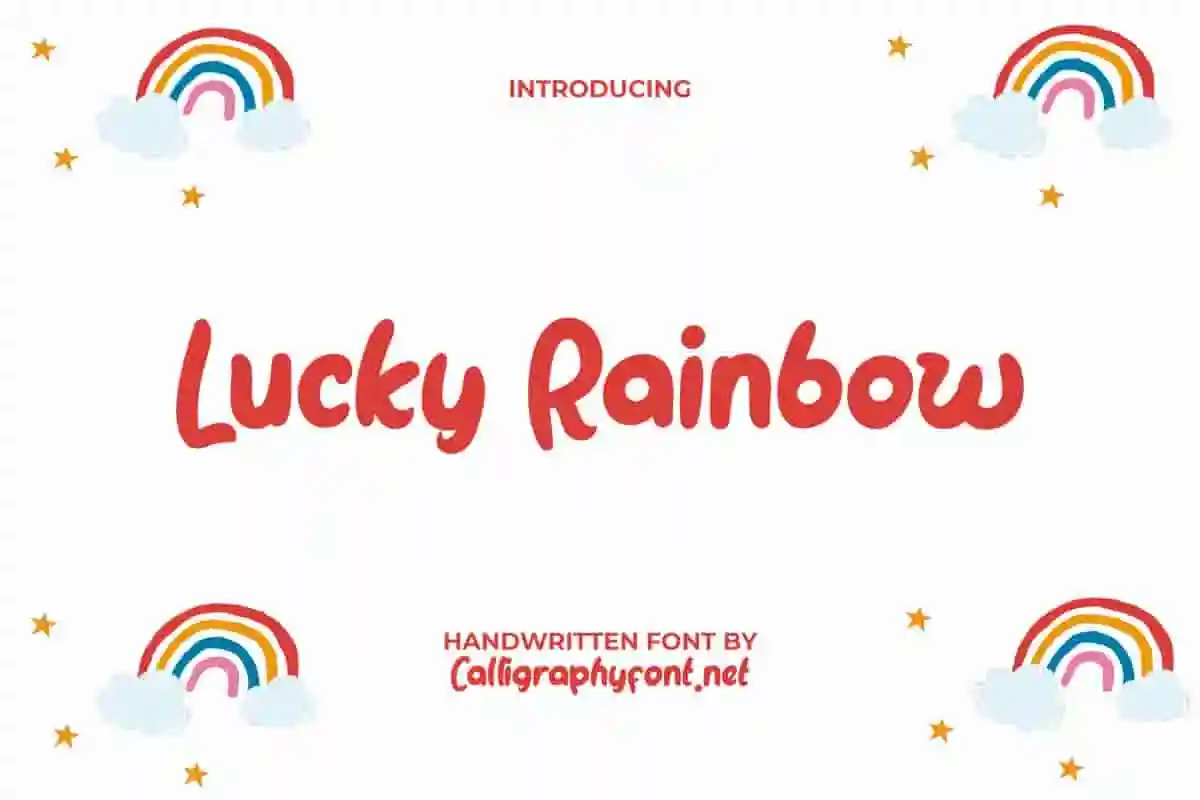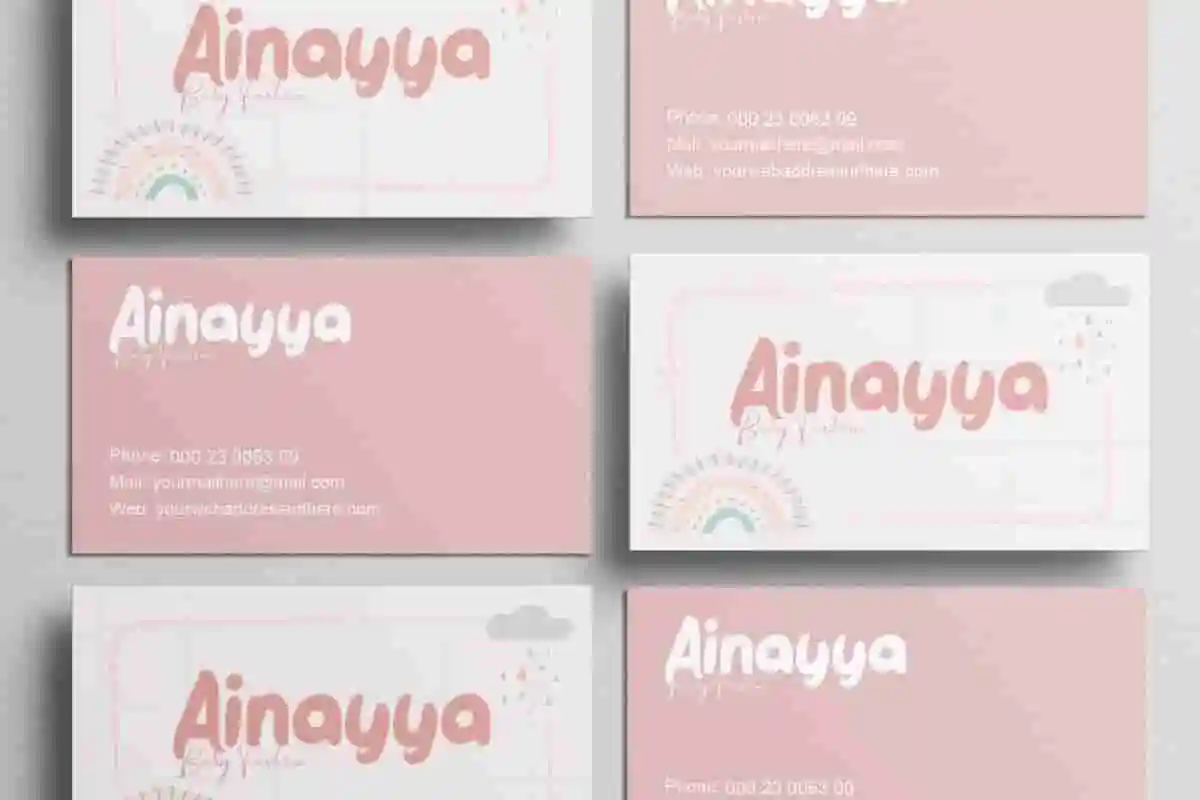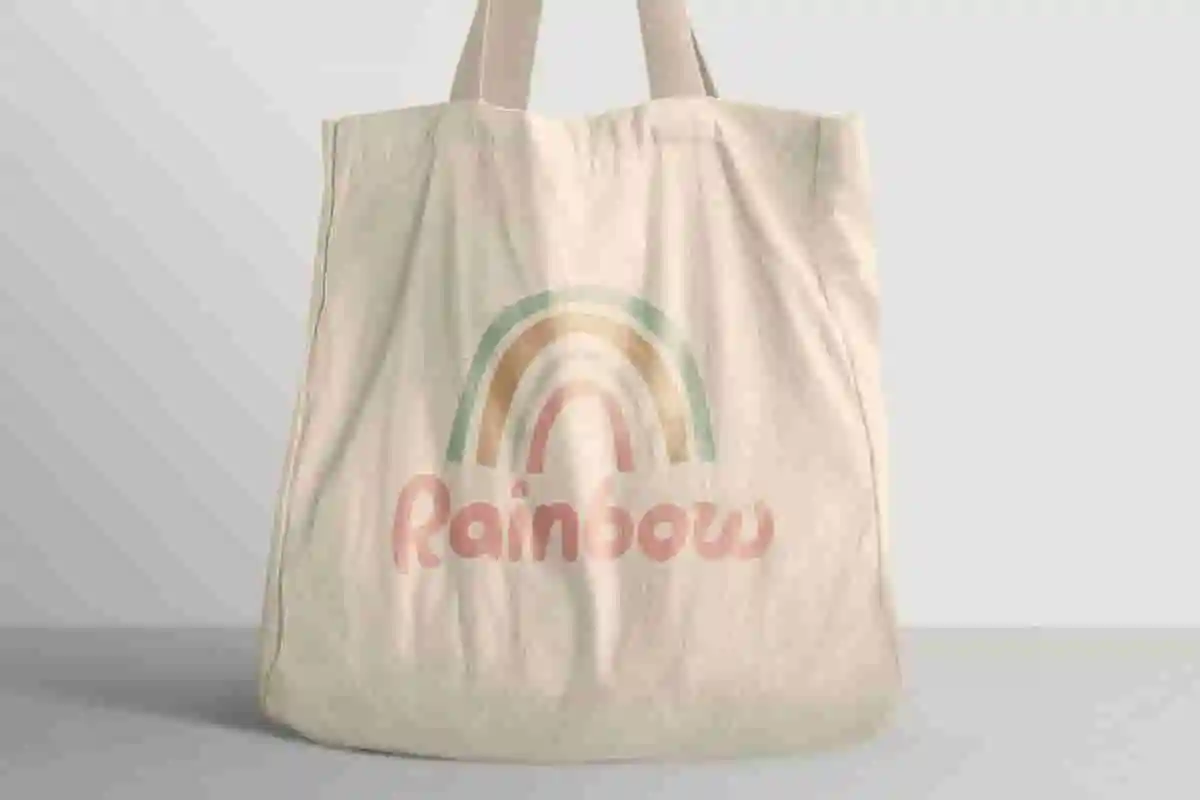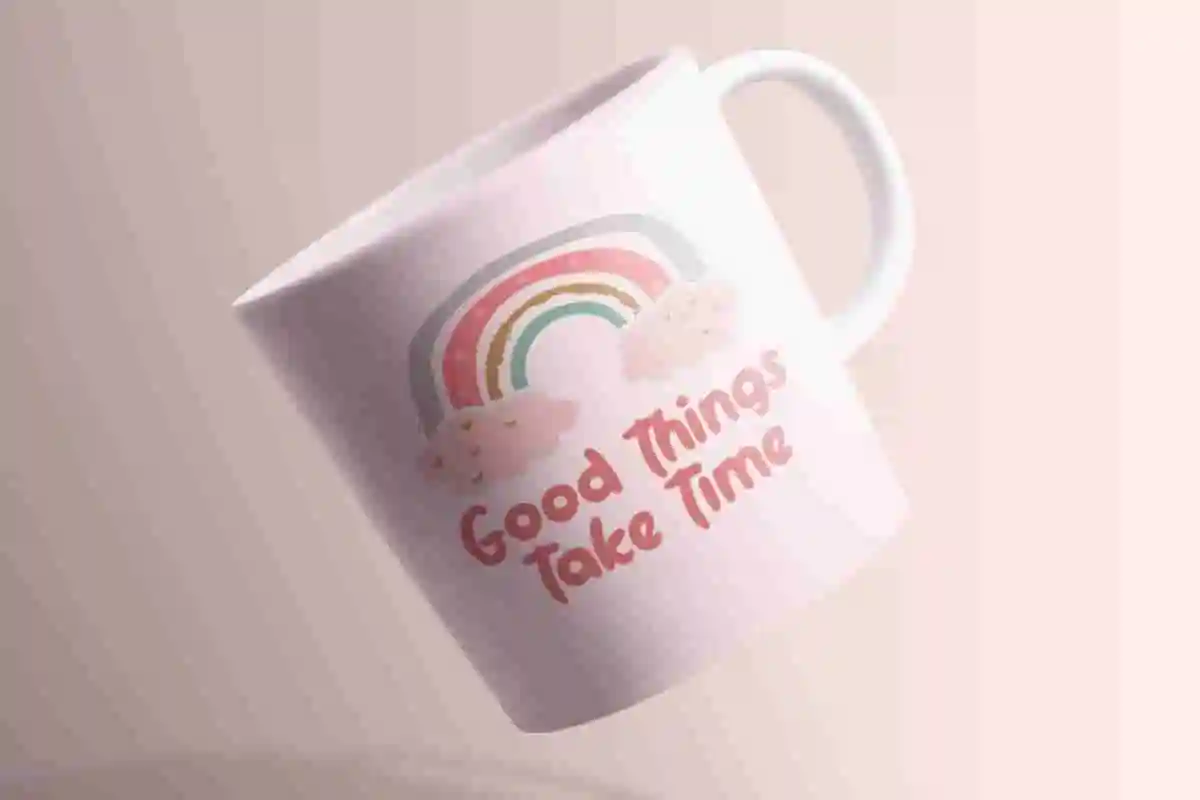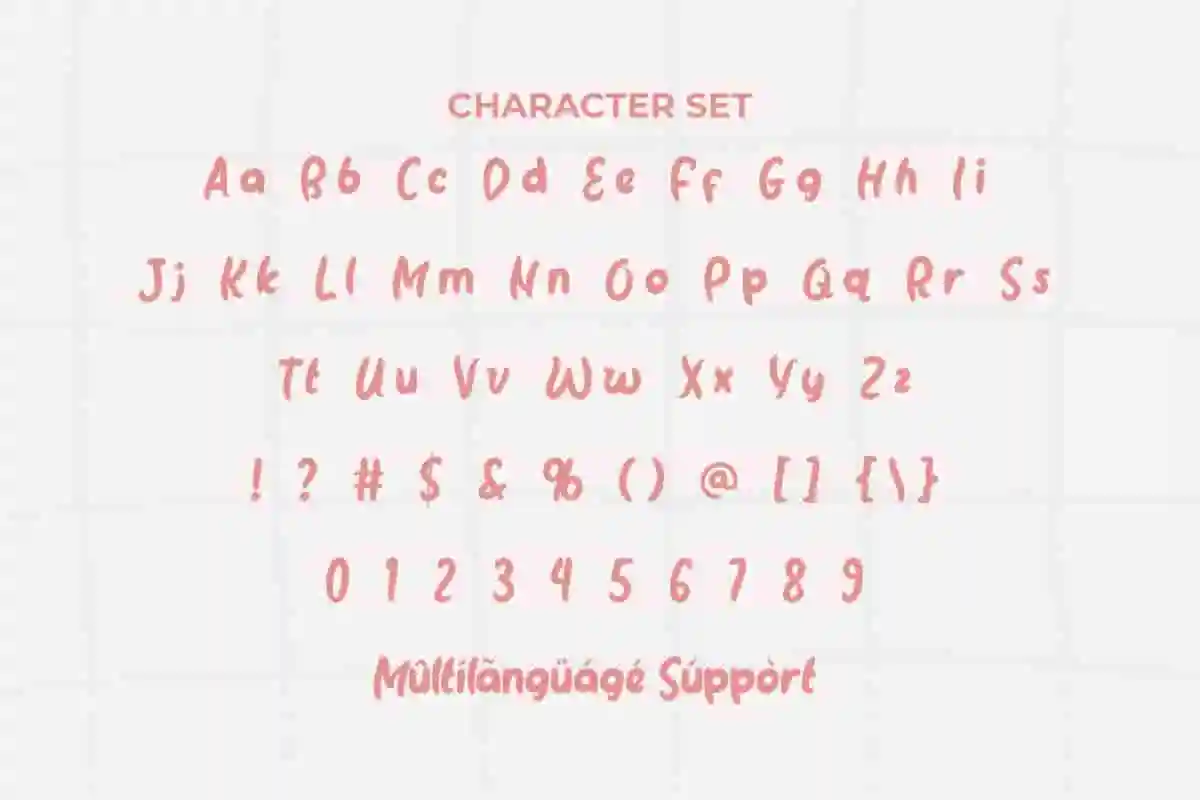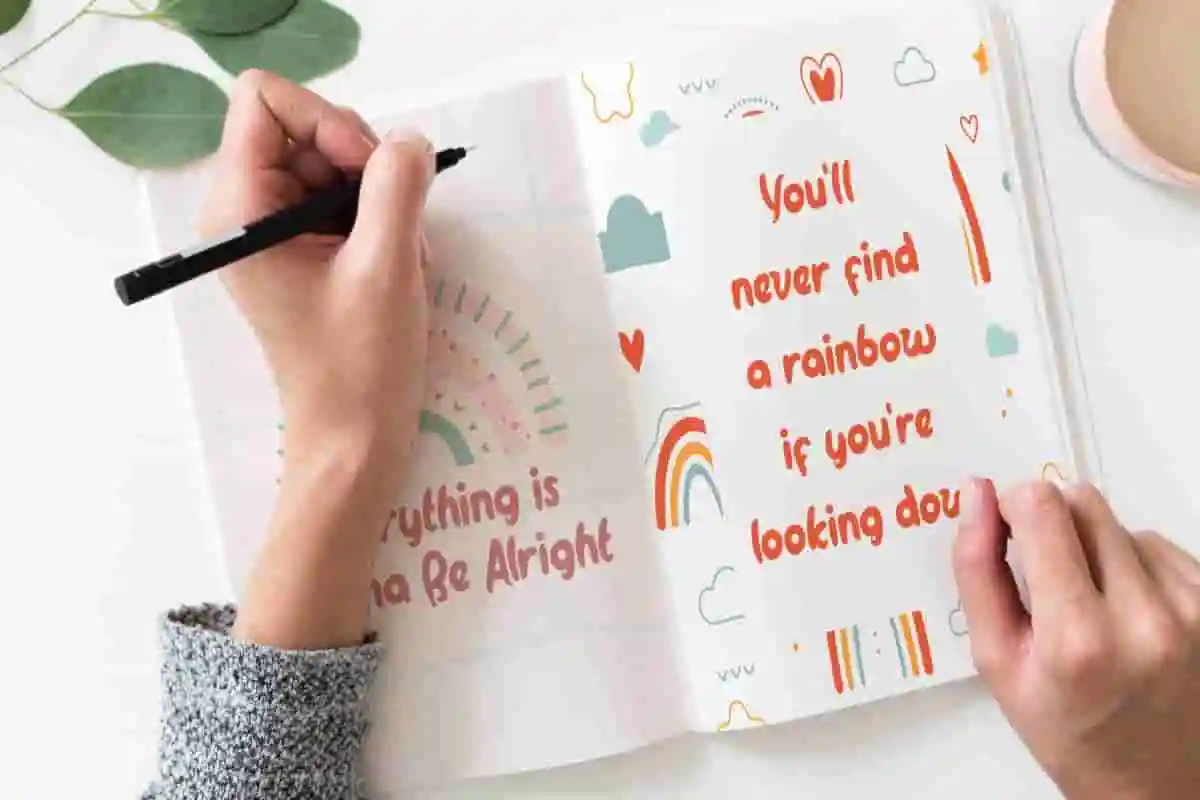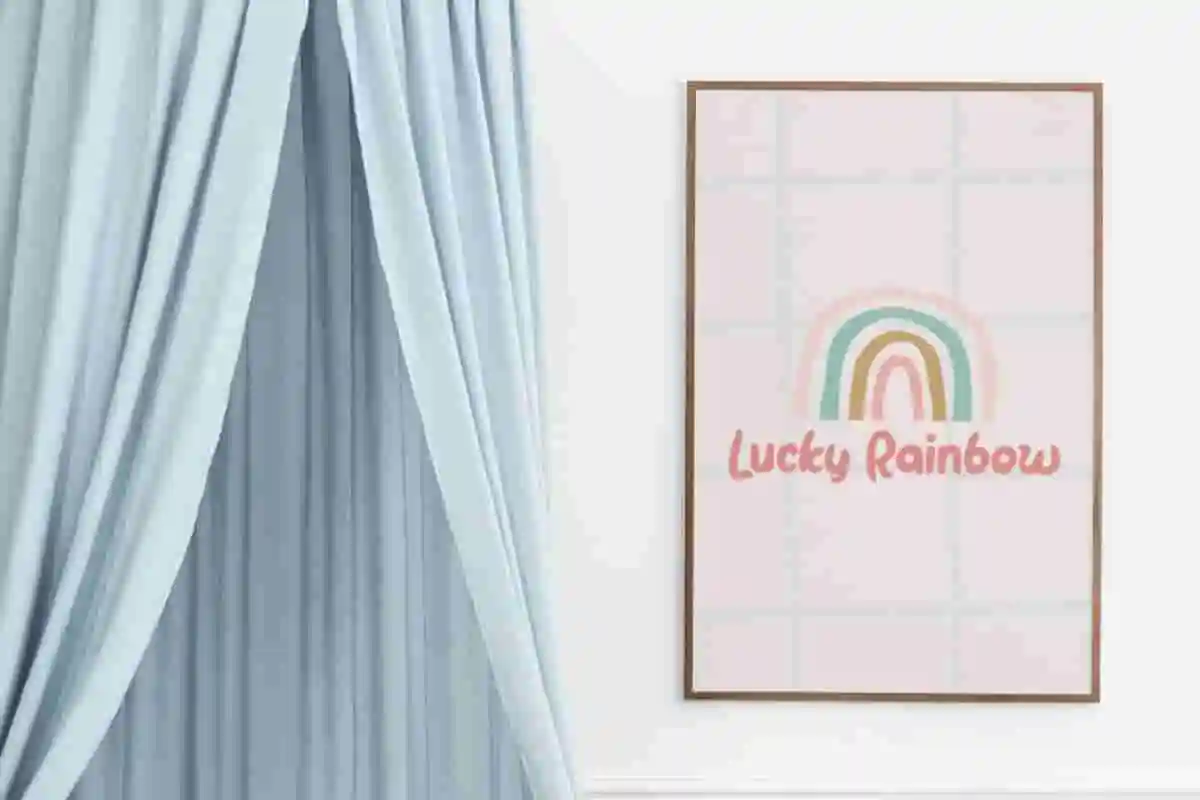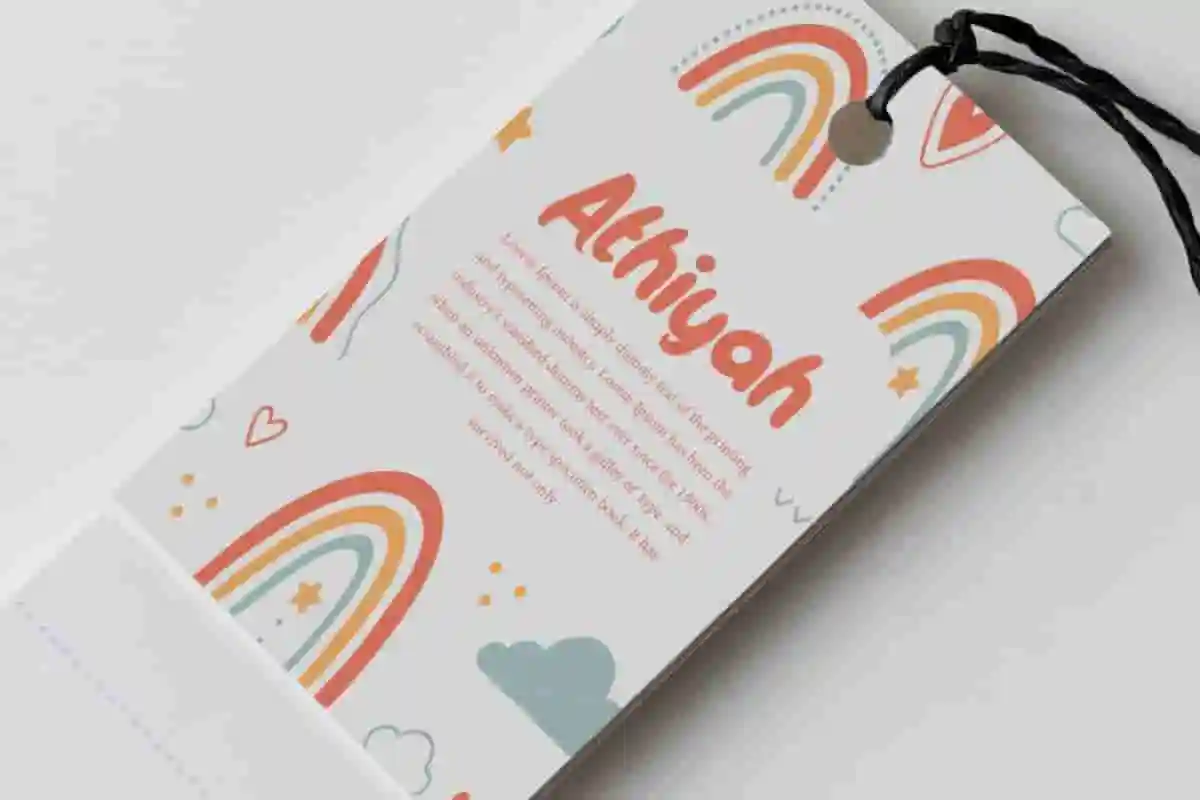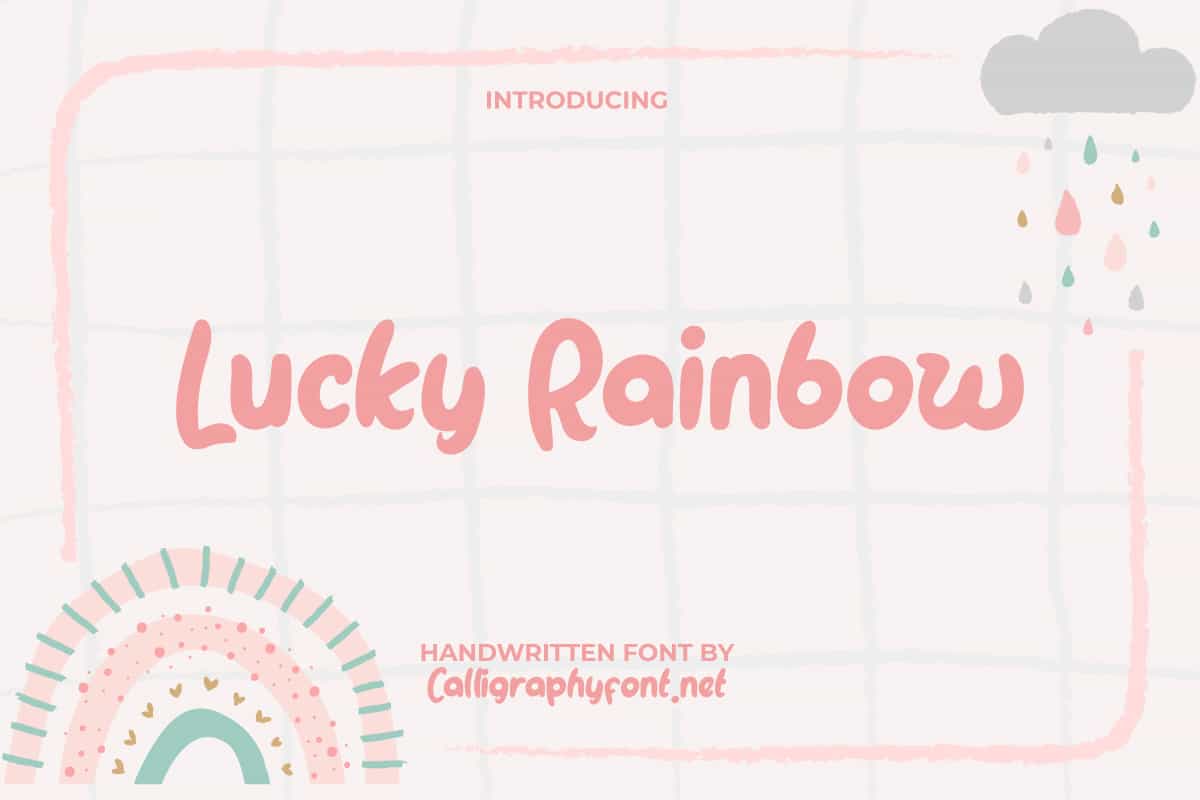
Lucky Rainbow Font
Lucky Rainbow Font is a charming and cute handwritten brush font that will provide you a variety of amazing letters for any work design you create! Looks great for logos, quotes, and a handmade touch.
Lucky Rainbow Font is a adorable handwritten brush font. This font can make your design even more adorable and never boring to look at. It will be good to perfect any project design, such as brand image, brochure, cover, custom design, flyer, invitation, label, marketing material, menu, poster, signage, screen print, stationery, sticker, thank you card, title, website, and many more!
Bring a burst of joy, charm, and creativity into your designs with Lucky Rainbow Handwriting Font — a playful decorative font designed to brighten every project. Whether you’re working on children’s books, fun invitations, product packaging, or social media graphics, this font adds a unique personality that captures attention instantly.
Lucky Rainbow Handwriting Font is all about vibrant expression. Its quirky curves and cheerful shapes make it perfect for playful branding, colorful posters, DIY crafts, stickers, logos, or anything that needs a touch of happiness. Instead of sticking to dull or generic typefaces, this font gives your work a lively, whimsical edge that sparks smiles and imagination.
Don’t settle for boring fonts when you can make every word sparkle with charm. Let your creativity flow and bring your projects to life with Lucky Rainbow Font — where every letter feels like a celebration of joy.
Lucky Rainbow Handwriting Font has bubbly character letters and will take your heart, giving it a cute appearance and will be good to used by many industries, such as accessories and merchandise, advertising, content creator, fashion, food and beverages, graphic design, handicraft, homeware, interior design, kids stuff, printing, publishing, etc.